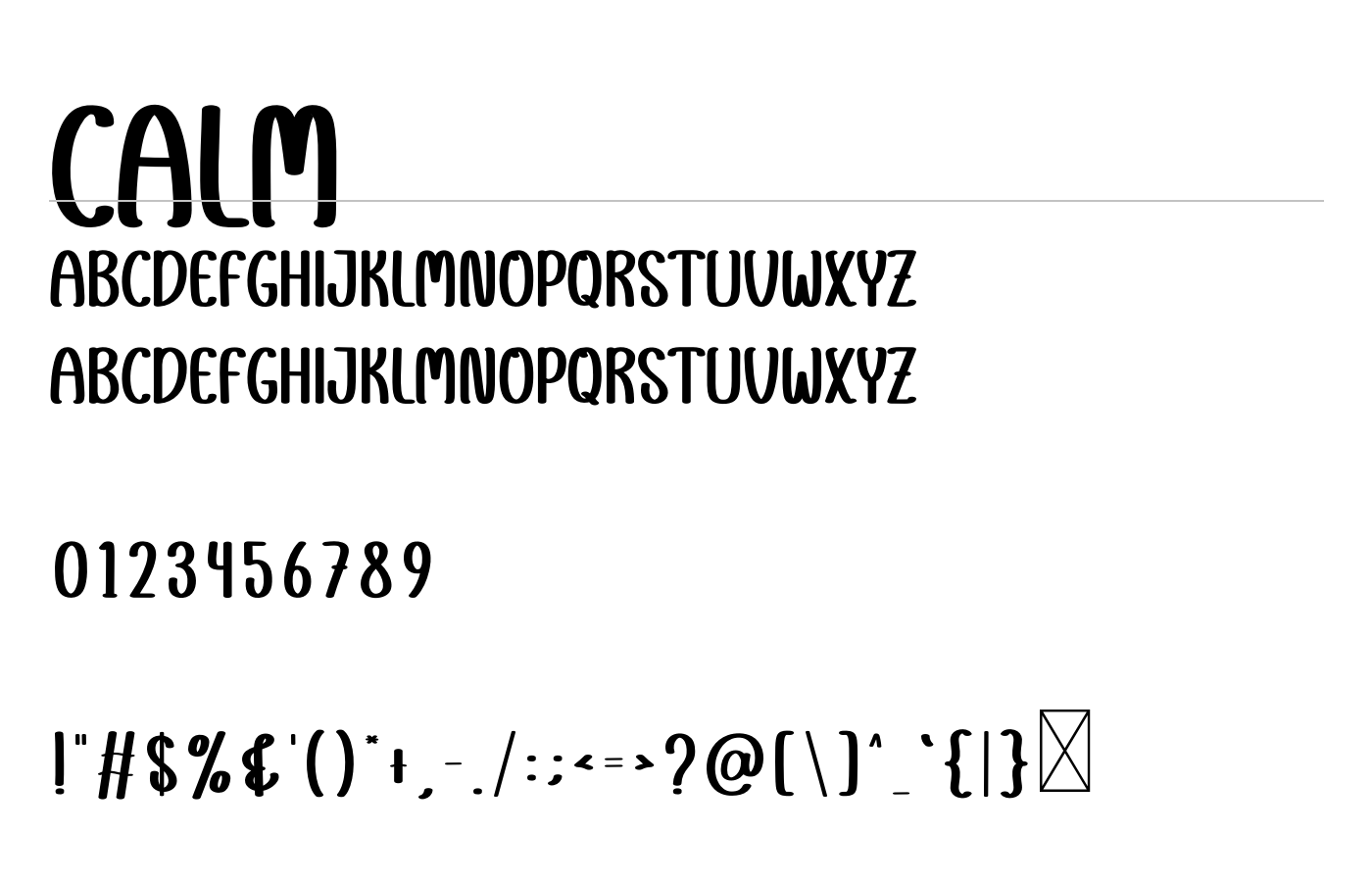
Calm Font is a playful sans serif typeface with a tall, narrow structure and soft, rounded edges that evoke a friendly and approachable feel. Its unique letterforms and slightly condensed width make it ideal for creative branding, children's books, and casual headlines where a warm and informal mood is needed. This font works well in designs that want to communicate cheerfulness and simplicity without sacrificing legibility.
Calm Font